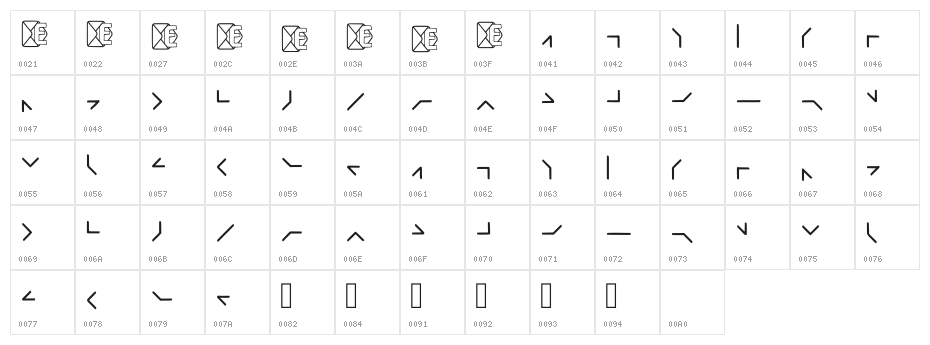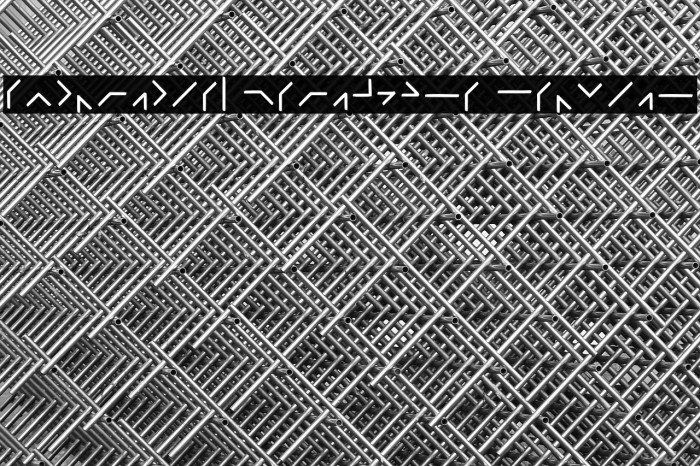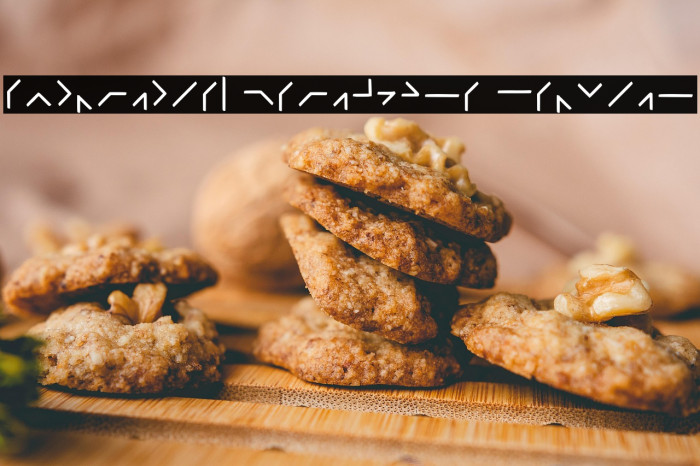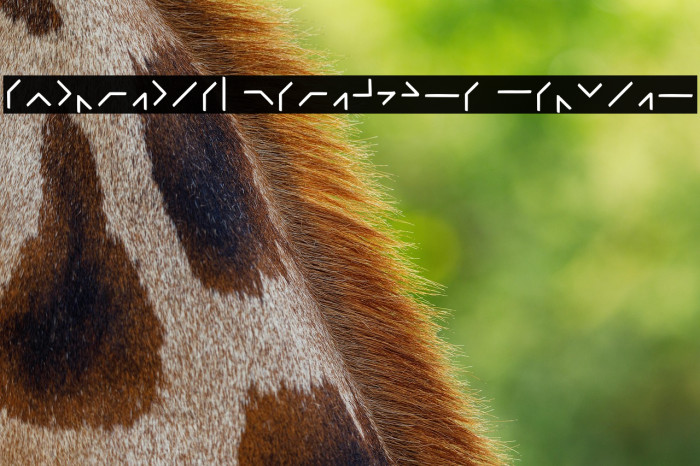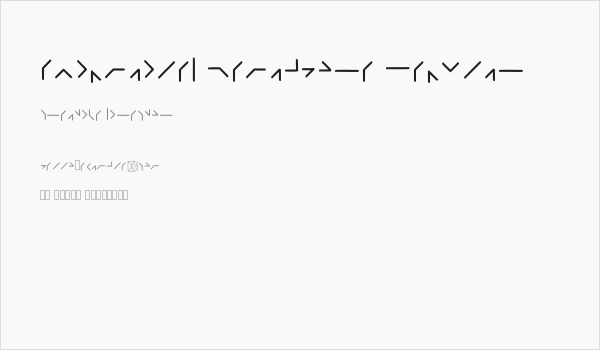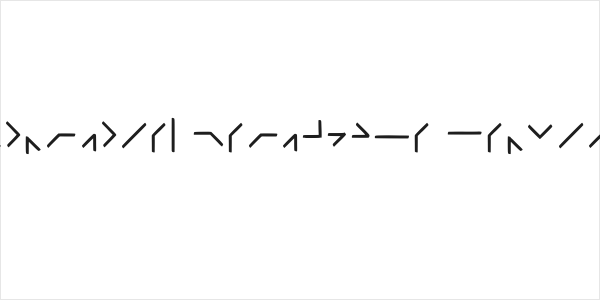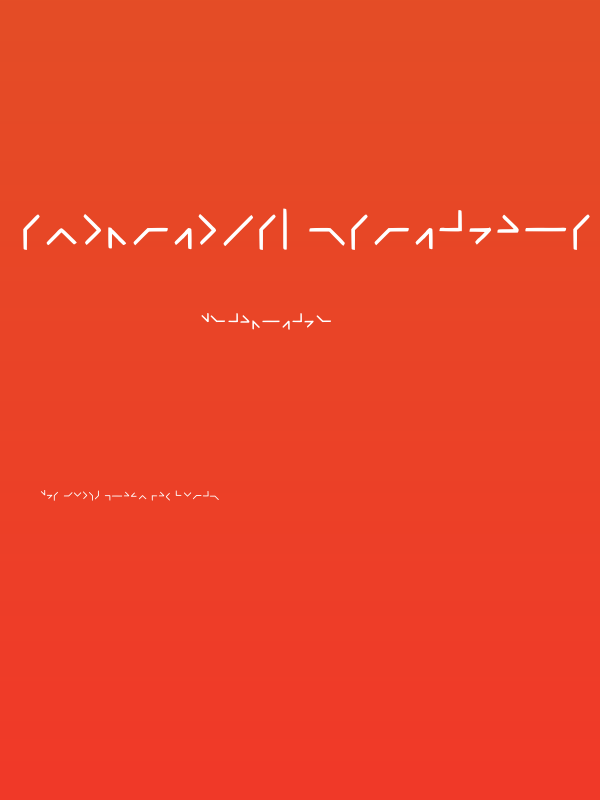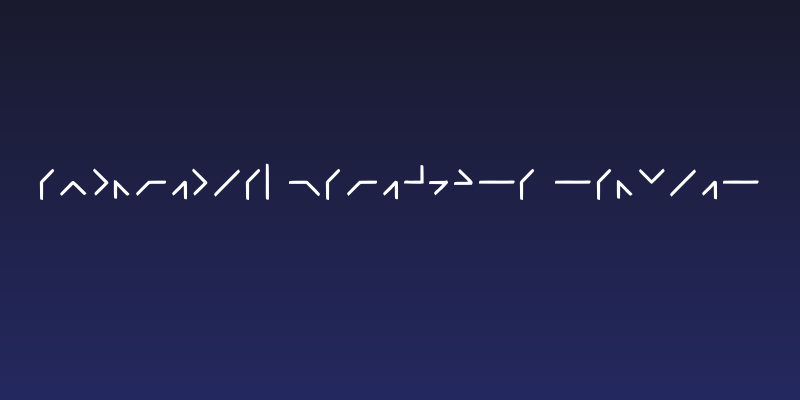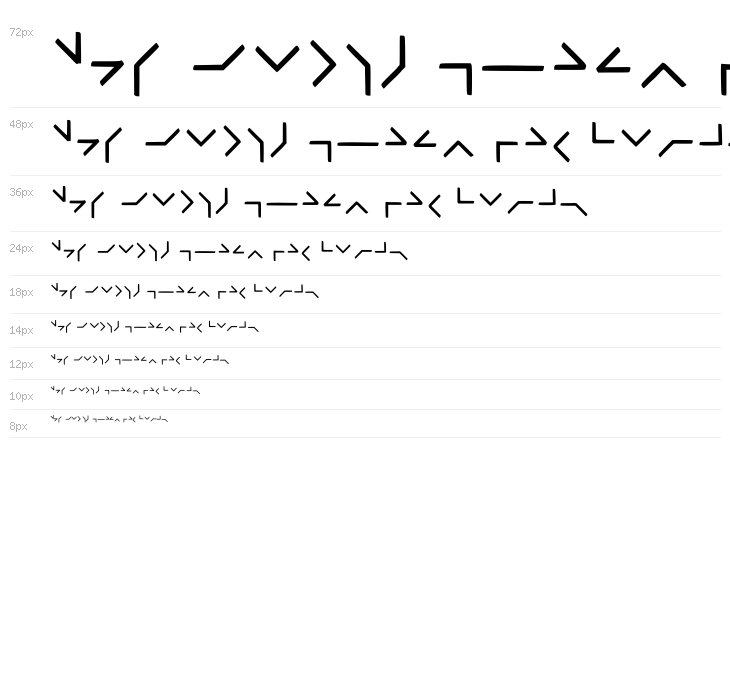
Enigmailed Semaphore Regular Font
Enigmailed Semaphore Regular Description
This font is a unique and abstract representation of characters, resembling semaphore signals. Each letter is composed of geometric shapes and lines, creating a modern and cryptic appearance. The design is minimalistic, with a focus on straight lines and angles, giving it a futuristic and technical feel. The characters are distinct and easily recognizable, yet they maintain a sense of mystery and enigma. This font is ideal for projects that require a sense of secrecy or code, such as escape room themes, puzzle games, or science fiction settings. Its unconventional style makes it stand out, providing a visually intriguing experience.
| Overall Style | Modern, Futuristic, Cryptic |
| Use Case | Logos, Themed designs, Puzzle games |
| Proposed Projects | Ideal for escape room themes, puzzle games, science fiction settings, or any project requiring a mysterious or coded aesthetic. |